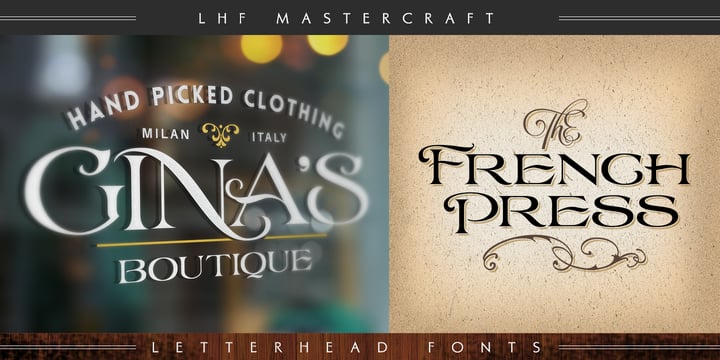
LHF Mastercraft 1 Rough
LHF Mastercraft 2
About LHF Mastercraft Font Family
LHF Mastercraft is one of the most versatile fonts you'll ever use. From its fanciful decorative caps to the easy to read lowercase letters, we're certain you'll find many uses for this unusual set. This style came directly from Chuck's own pencil sketches and hearken back to a day when the masterfully executed classic roman letter was the mark of every skilled veteran. Mastercraft 2 contains decorative caps that are complimentary and not overwhelming. Use Mastercraft 1 Rough when you require a more weathered appearance. Experiment with stacking the two different Shadow fonts. Each font contains several alternates and ligatures.
Designers: Chuck Davis
Publisher: Letterhead Fonts
Foundry: Letterhead Fonts